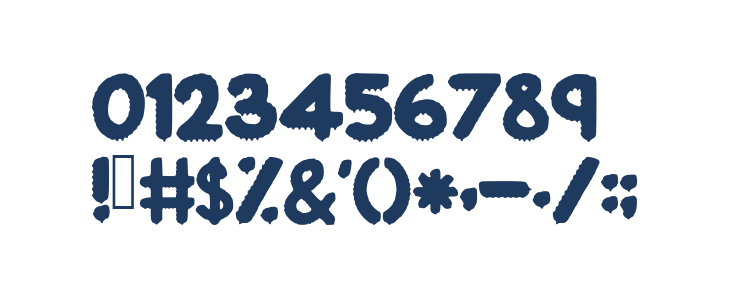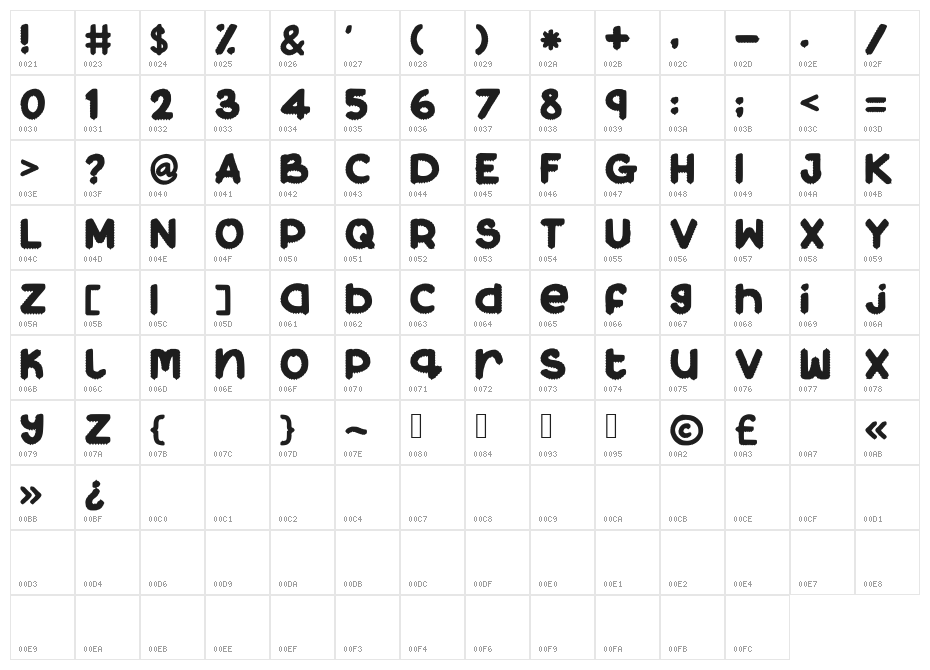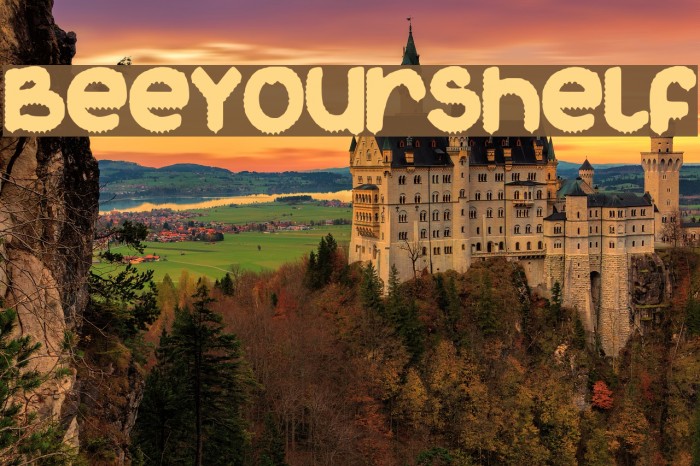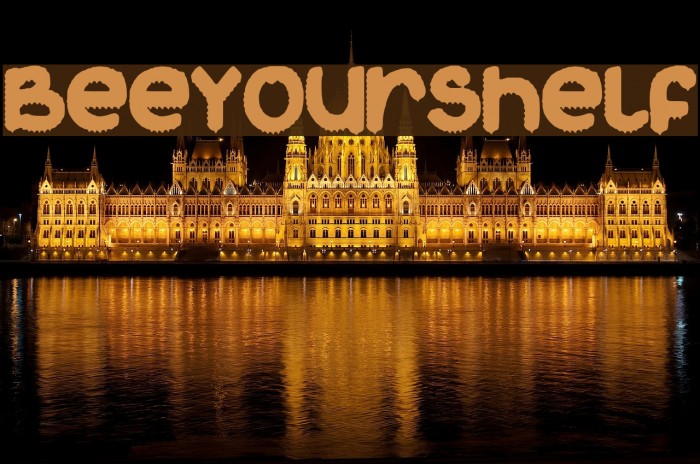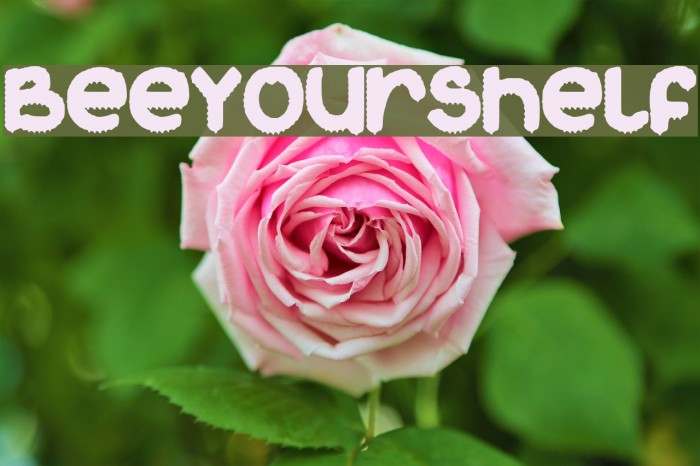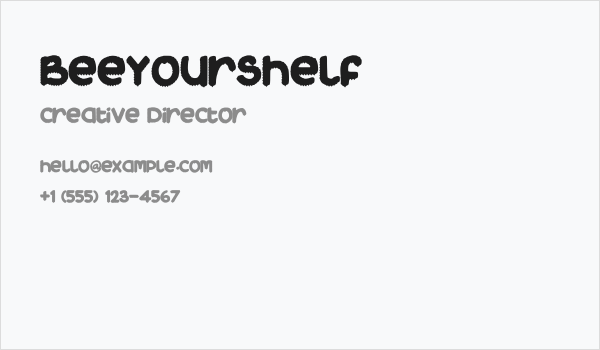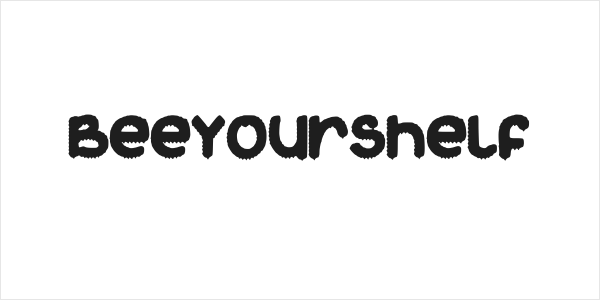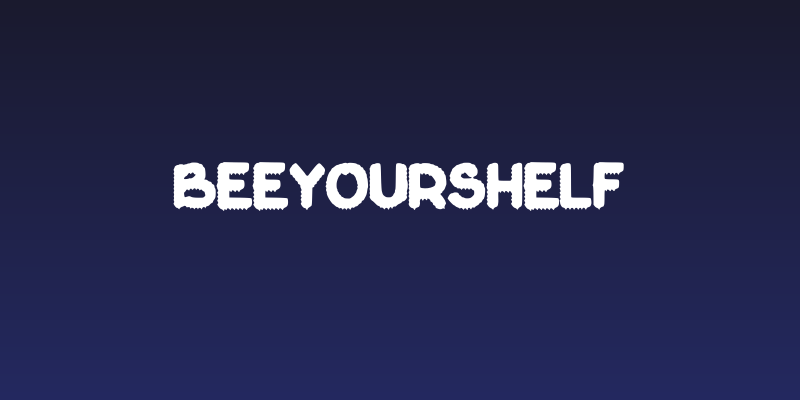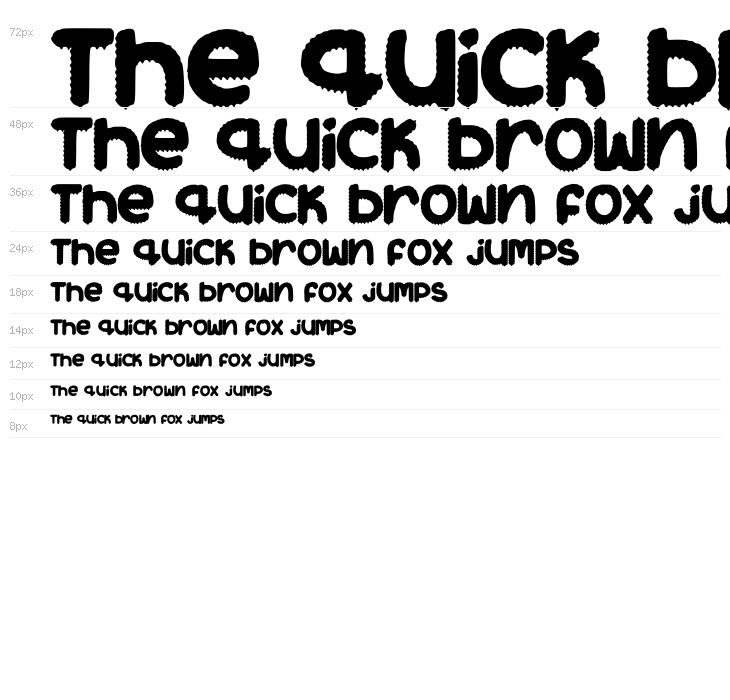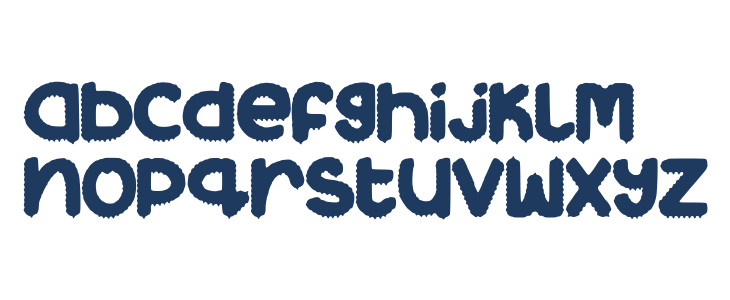
BeeYourShelf Font
BeeYourShelf Description
This font features a playful and bold design with a unique zigzag pattern along the edges of each character. The letters are rounded and thick, giving a sense of fun and creativity. The uppercase and lowercase letters maintain a consistent style, while the numbers and special characters complement the overall look. The font's distinct style makes it stand out, perfect for projects that require a touch of whimsy and boldness.
| Overall Style | Playful, Creative |
| Use Case | Logos, Posters, Invitations |